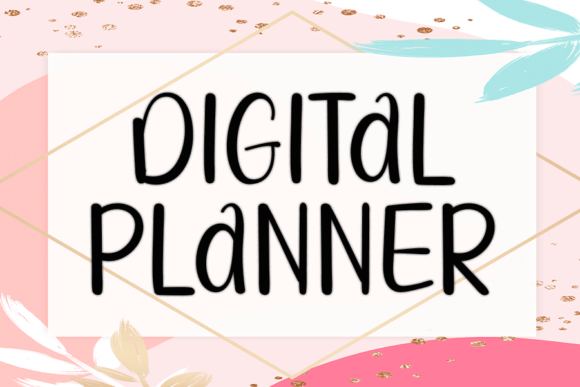
The Perfect Blend of Handwritten Elegance
Have you ever found yourself lost in a sea of blank paper, searching for the perfect font to bring your creative vision to life? For many designers, this moment is all too familiar. The search for the perfect font can be a daunting task, but what if I told you that the answer lies in the Digital Planner Font? This beautiful handwritten font boasts an elegant touch, making it the perfect addition to any project.
The Digital Planner Font is more than just a font – it’s an experience. Its distinct and timeless style is sure to captivate your audience and leave a lasting impression. Whether you’re designing a wedding invitation, a blog post, or a social media graphic, this font is the perfect choice. With its versatility and sophistication, the Digital Planner Font is a valuable asset for any designer looking to elevate their work.
- Unique Characteristics: The Digital Planner Font features a modern, clean, and minimalist design, making it perfect for digital planners, journals, and other creative projects.
Digital Planner Font Review
I’ve had the chance to work with the Digital Planner Font, and I must say it’s been a mixed bag for me. ✨ Here are some things that I think work well:
- Unique and creative flair: The font has a distinctive look that’s perfect for those who want their planners to stand out.
- Wide character set: The font includes a wide range of characters, including numbers, symbols, and special characters, making it perfect for planning and organization.
- Easy to read: Despite its unique look, the font is surprisingly easy to read, even at small sizes.
However, there are some limitations that might hold you back. ⚠️ Here are a few things I’ve noticed:
- Not ideal for long texts: While the font is great for short phrases and titles, it can be a bit difficult to read when used for long blocks of text.
- Limited font sizes: The font doesn’t come in as many font sizes as I’d like, which can limit its versatility.
Overall, I think the Digital Planner Font is a great choice for those who want a unique and creative look for their planners. However, it’s not the best choice for those who need a font that can handle long texts or a wide range of font sizes.
Some tips for getting the most out of the digital planner font include:
- Using it consistently throughout your design for a cohesive look.
- Experimenting with different font sizes and colors to create visual hierarchy.
- Combining it with other design elements, such as icons and graphics, to add visual interest.
Common use cases for the digital planner font include:
- Creating digital planners and organizers.
- Designing printables, such as calendars and to-do lists.
- Developing branding and marketing materials, such as business cards and brochures.
Alternatives to Digital Planner Font for Designers
Great Vibes is a modern, elegant script font ideal for creating a warm and inviting atmosphere in digital planners. It’s perfect for headings, titles, and quotes. Great Vibes has a more refined and sophisticated look compared to Digital Planner Font, making it suitable for designers who want a more premium feel.
Compared to Digital Planner Font, Great Vibes has a more fluid and connected letterform, giving it a more dynamic appearance.